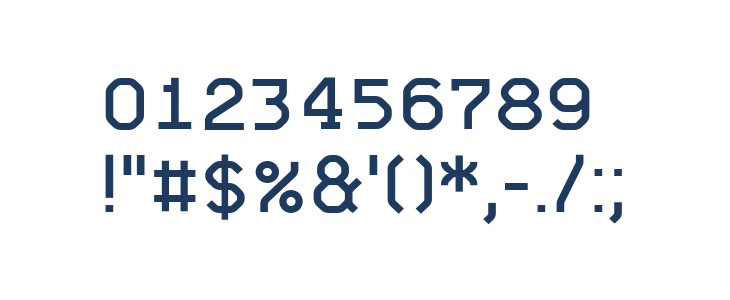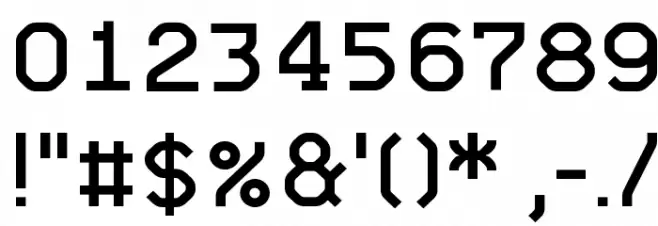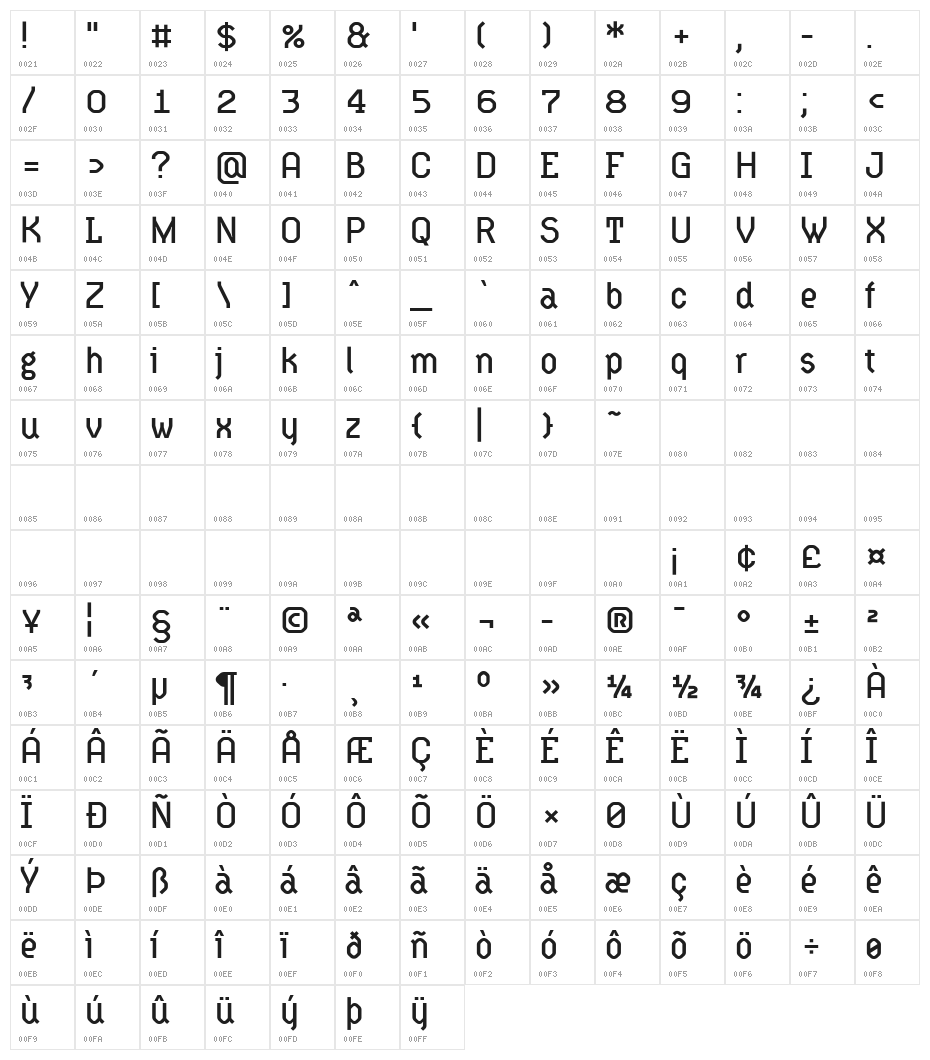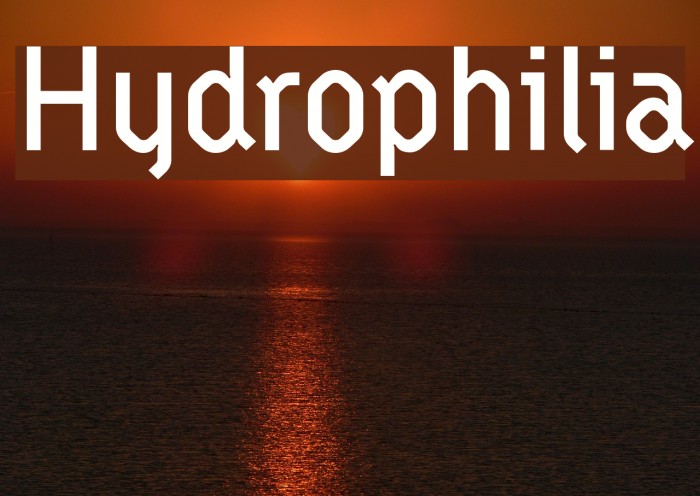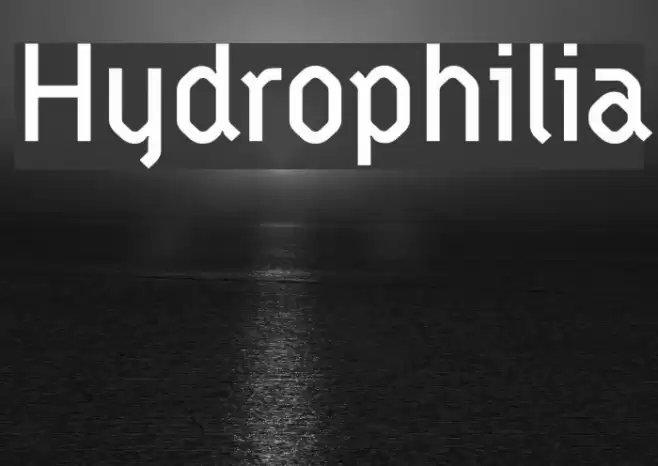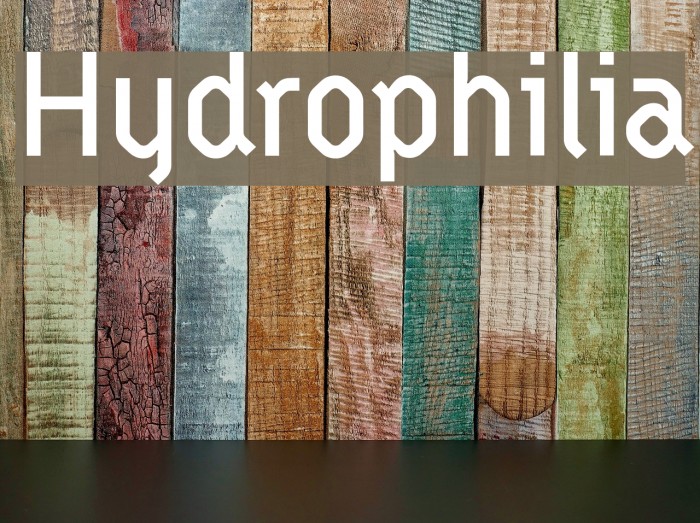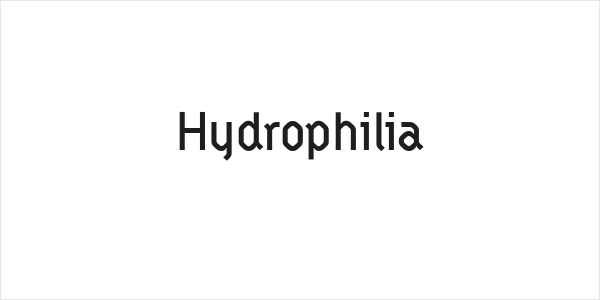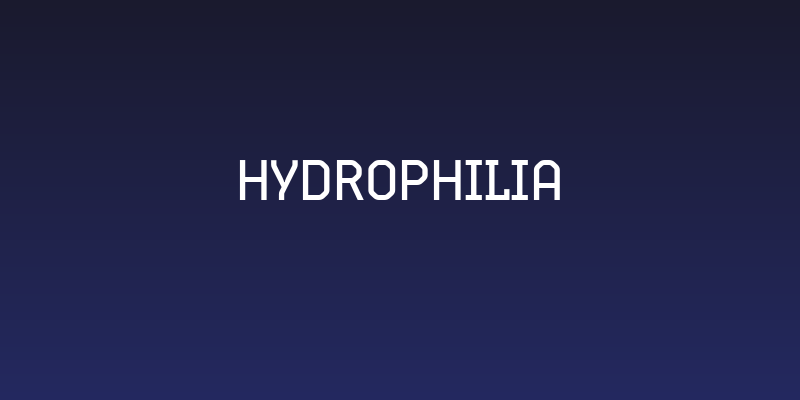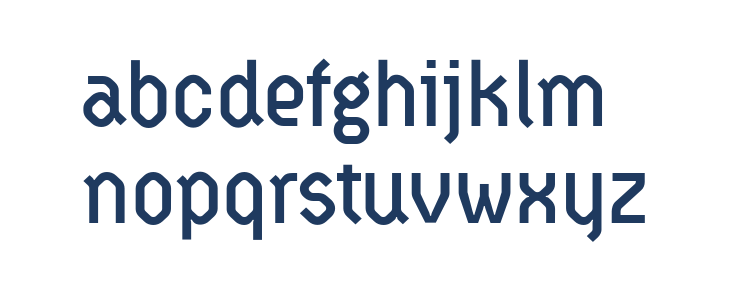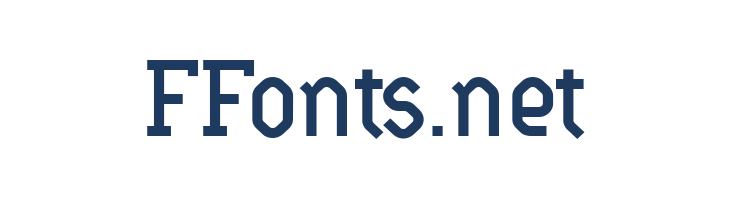
Hydrophilia Font
Hydrophilia Description
This font features a geometric and modern design with a distinct, bold appearance. The characters are constructed with clean lines and a uniform stroke width, giving it a structured and contemporary feel. The uppercase and lowercase letters maintain a consistent style, with rounded edges that soften the overall look. The numerals and special characters are designed to match the letterforms, ensuring a cohesive appearance across all elements. This font's clarity and simplicity make it highly legible, even at smaller sizes, while its boldness ensures it stands out in larger formats.